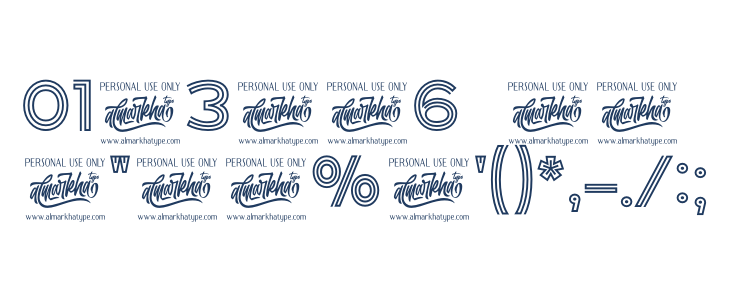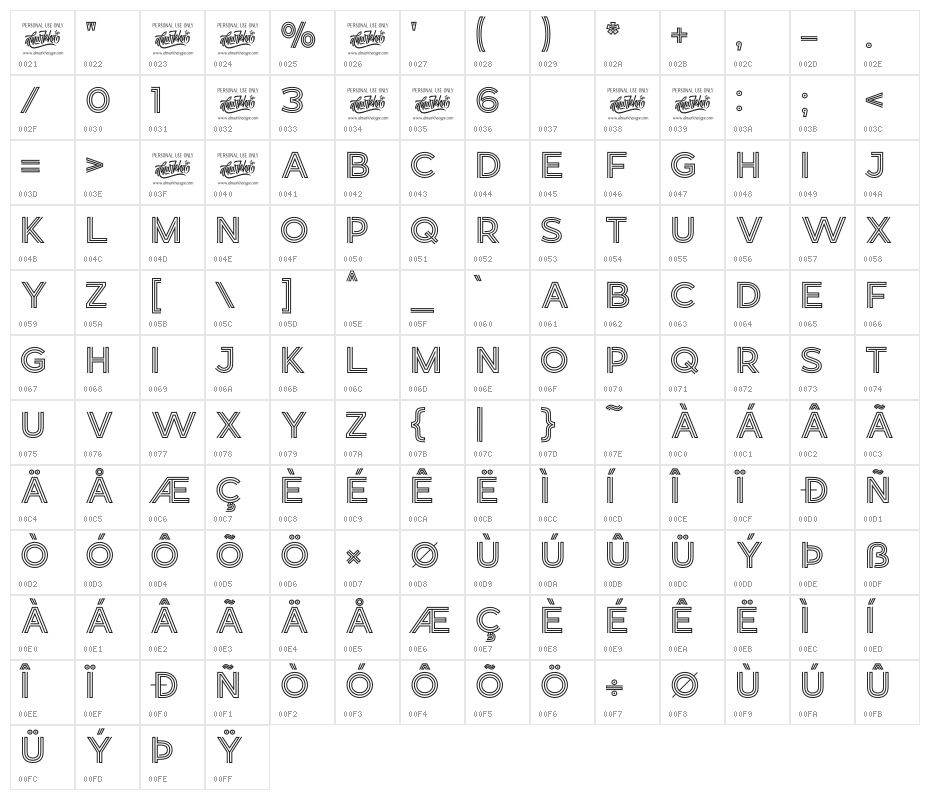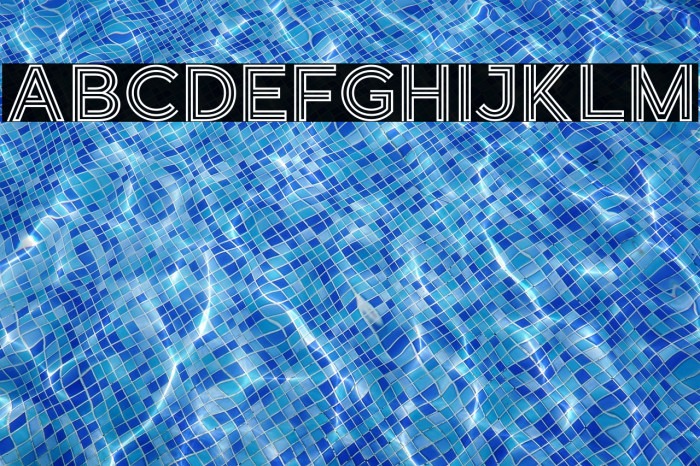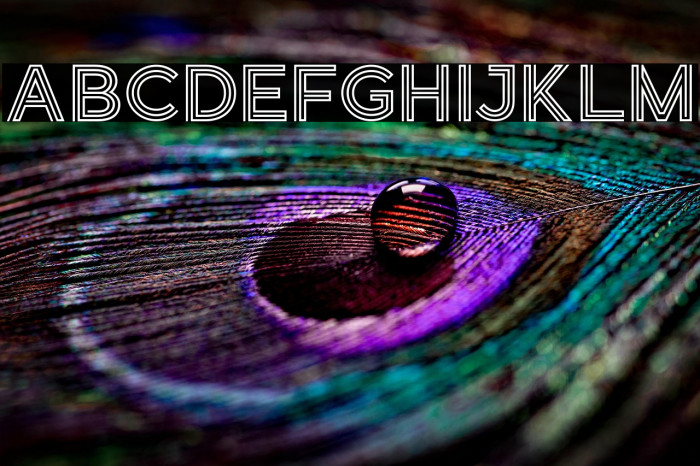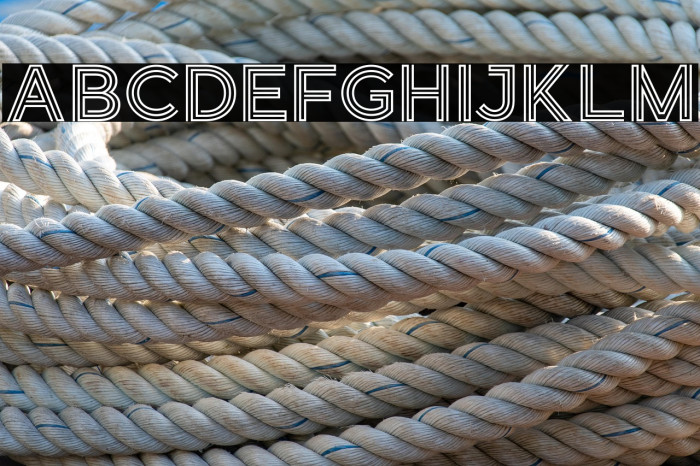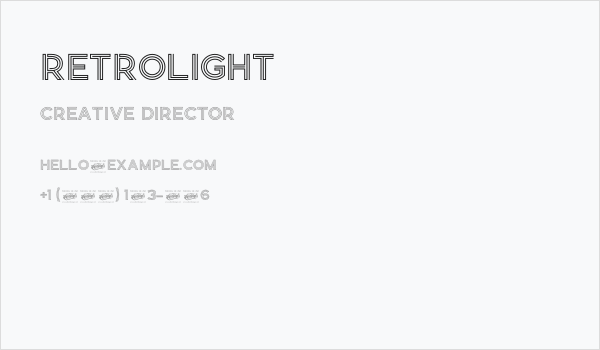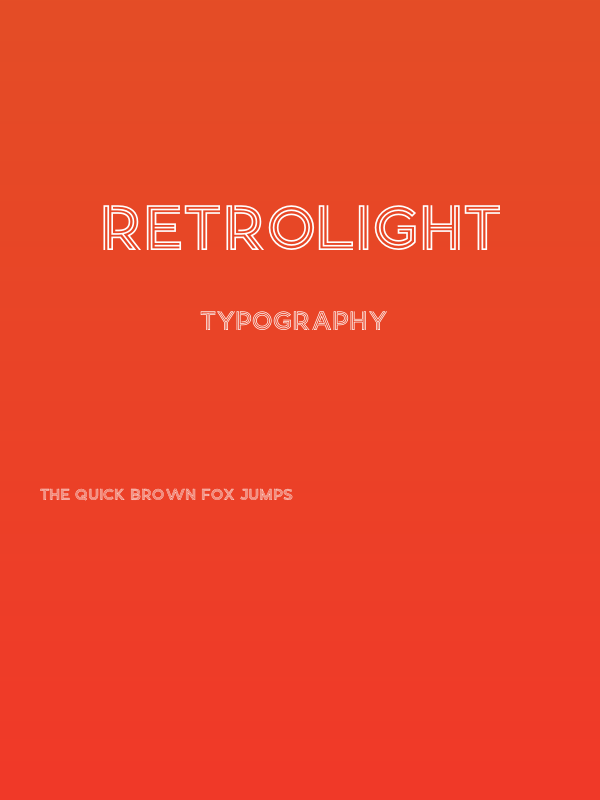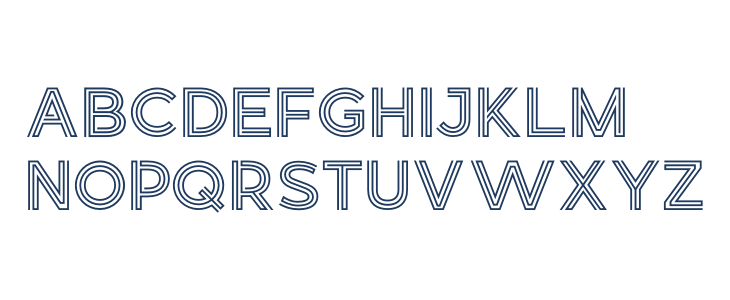
Retrolight Font
Retrolight Description
This font features a unique, retro-inspired design with a double-line structure that gives it a distinct, layered appearance. The uppercase letters are bold and geometric, with clean lines and a modern twist. The lowercase letters maintain the same double-line style, ensuring consistency throughout the typeface. Numbers and special characters are included, each crafted with the same attention to detail and style. This font's design is both eye-catching and versatile, making it suitable for a variety of creative projects.
| Overall Style | Retro, Modern |
| Proposed Projects | Ideal for vintage-themed posters, logos, branding, and headlines. |